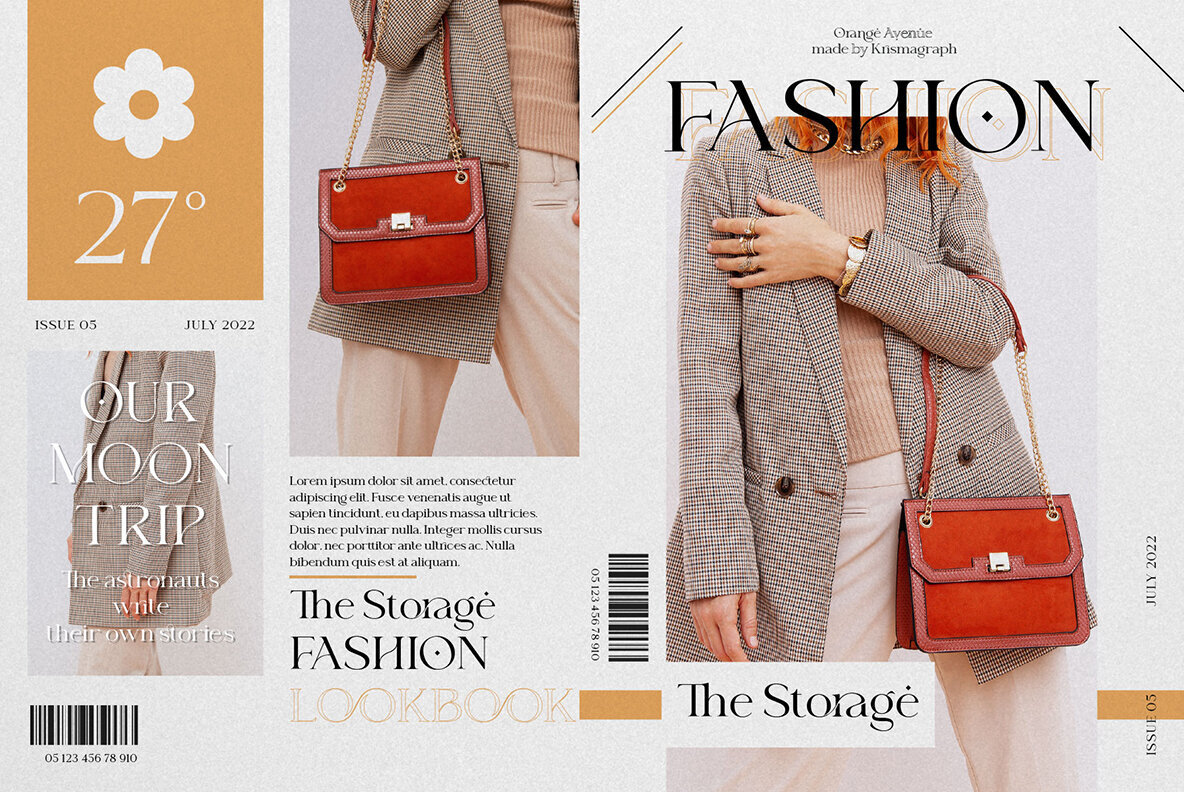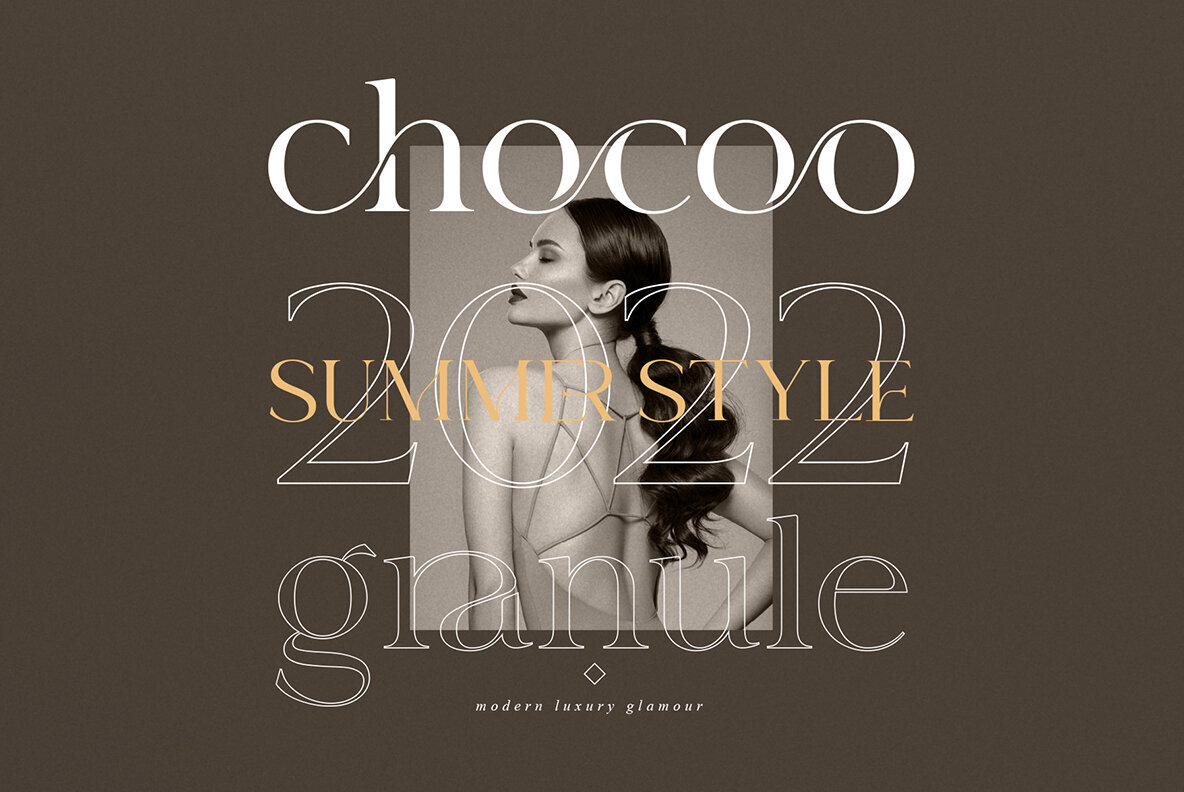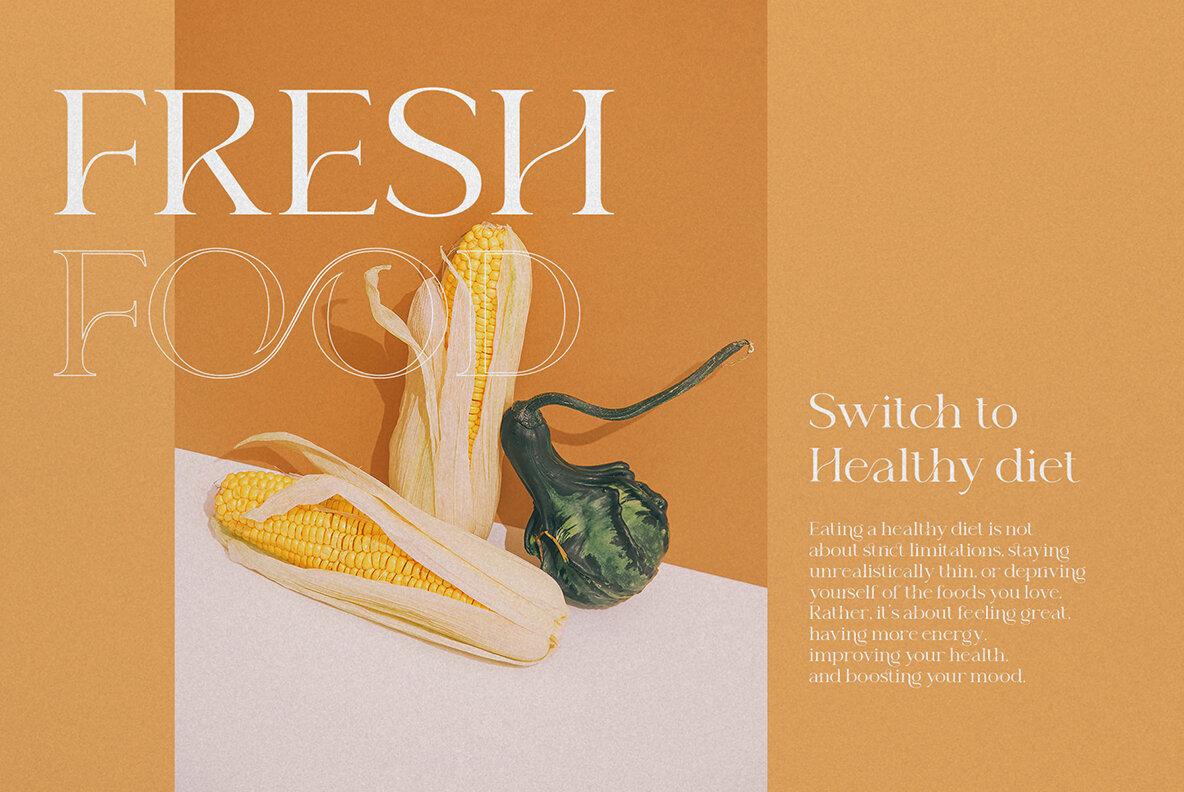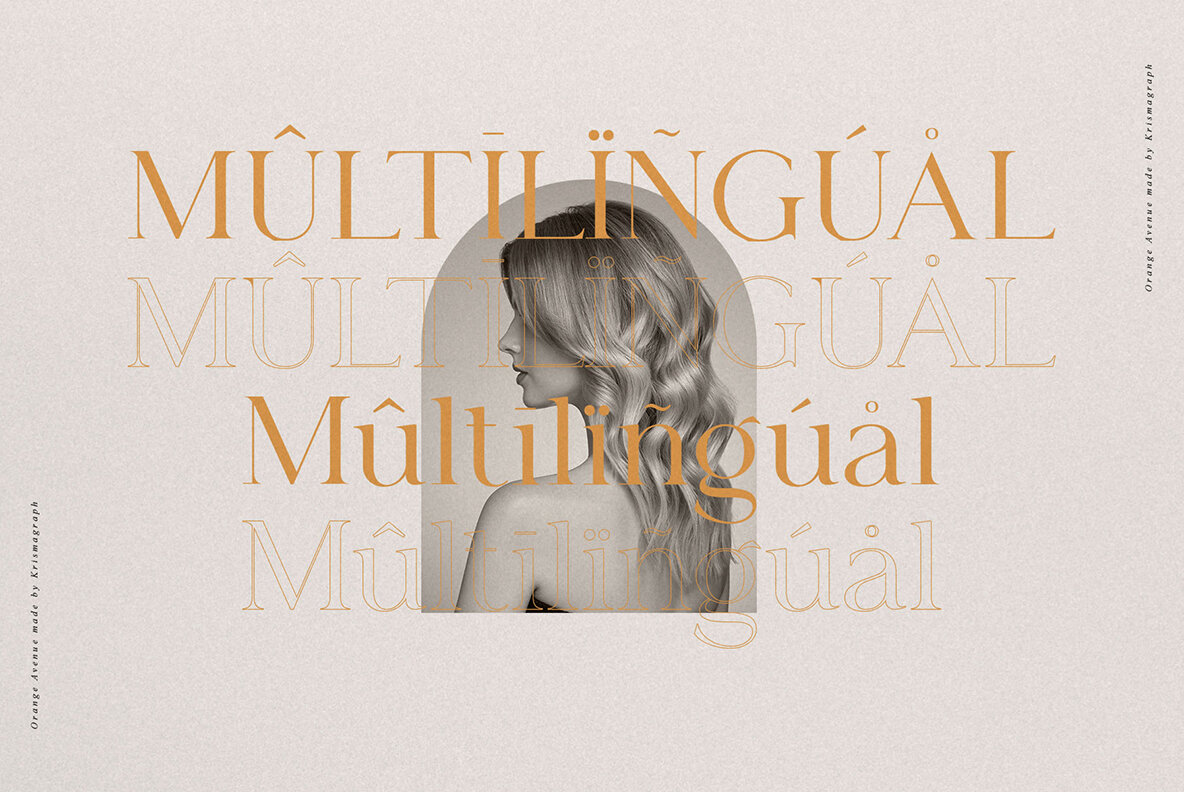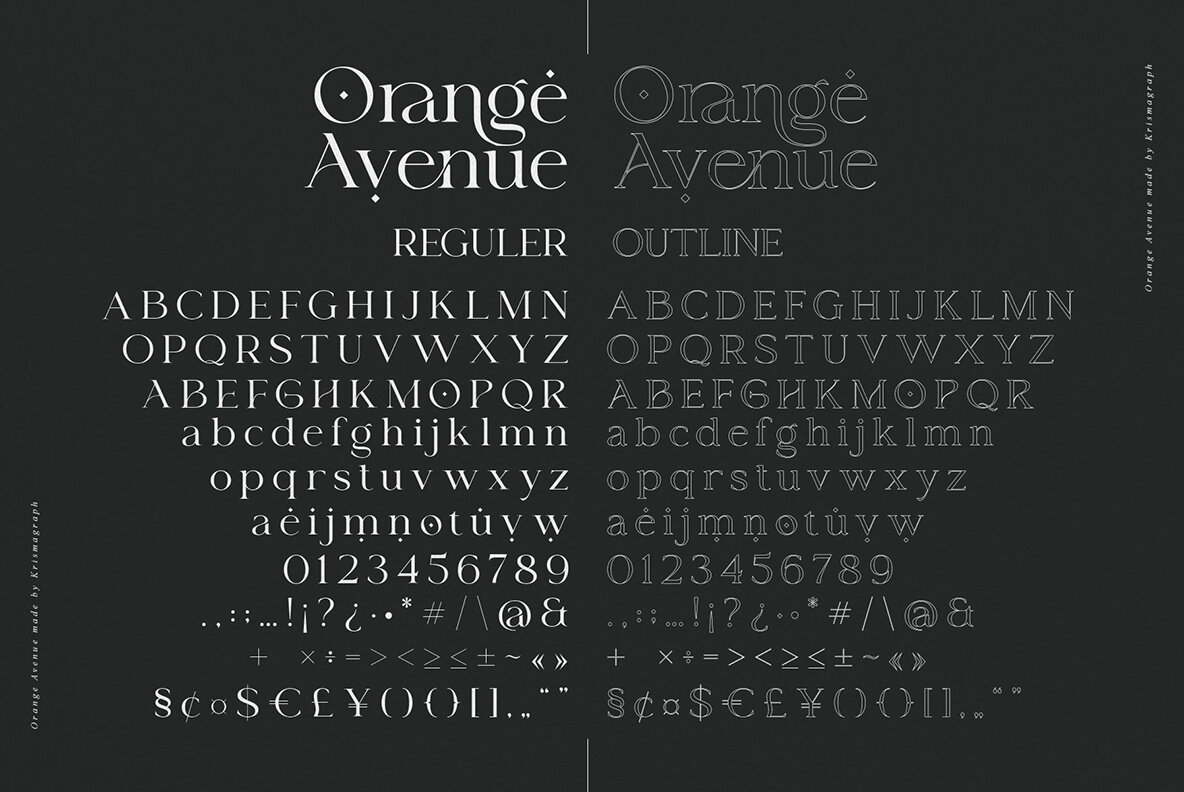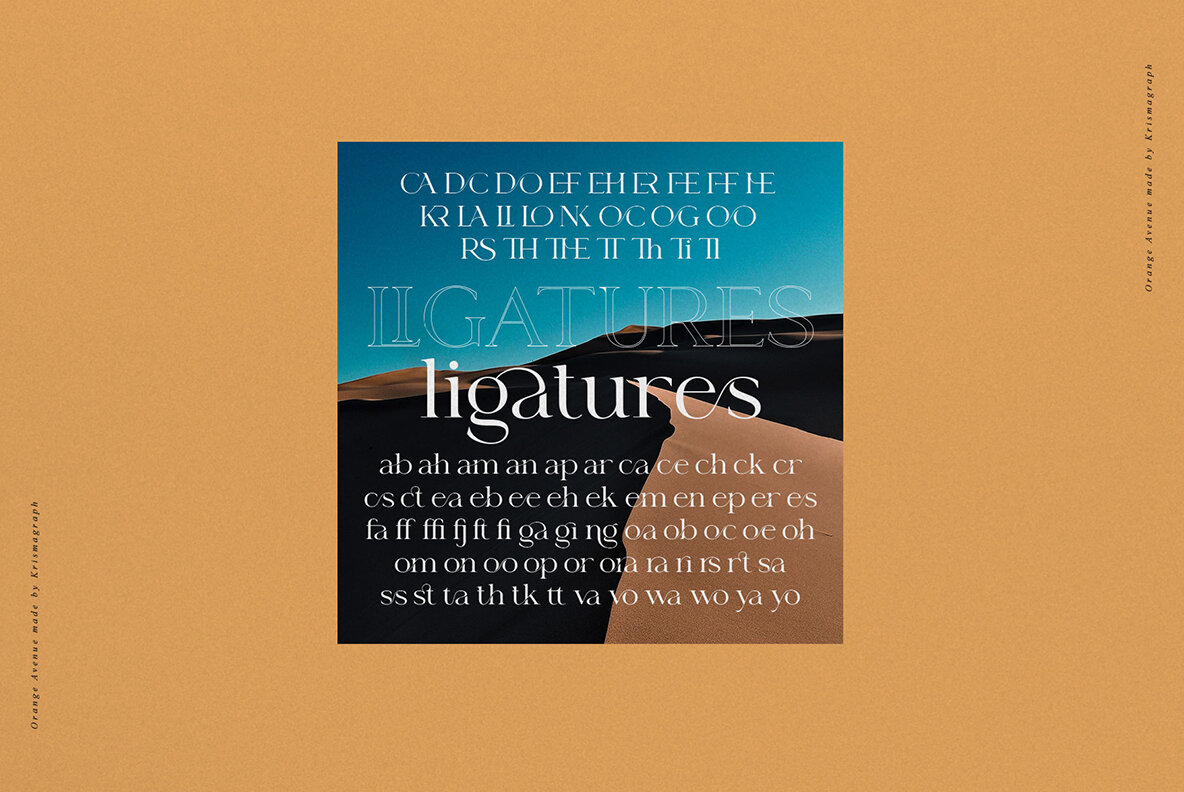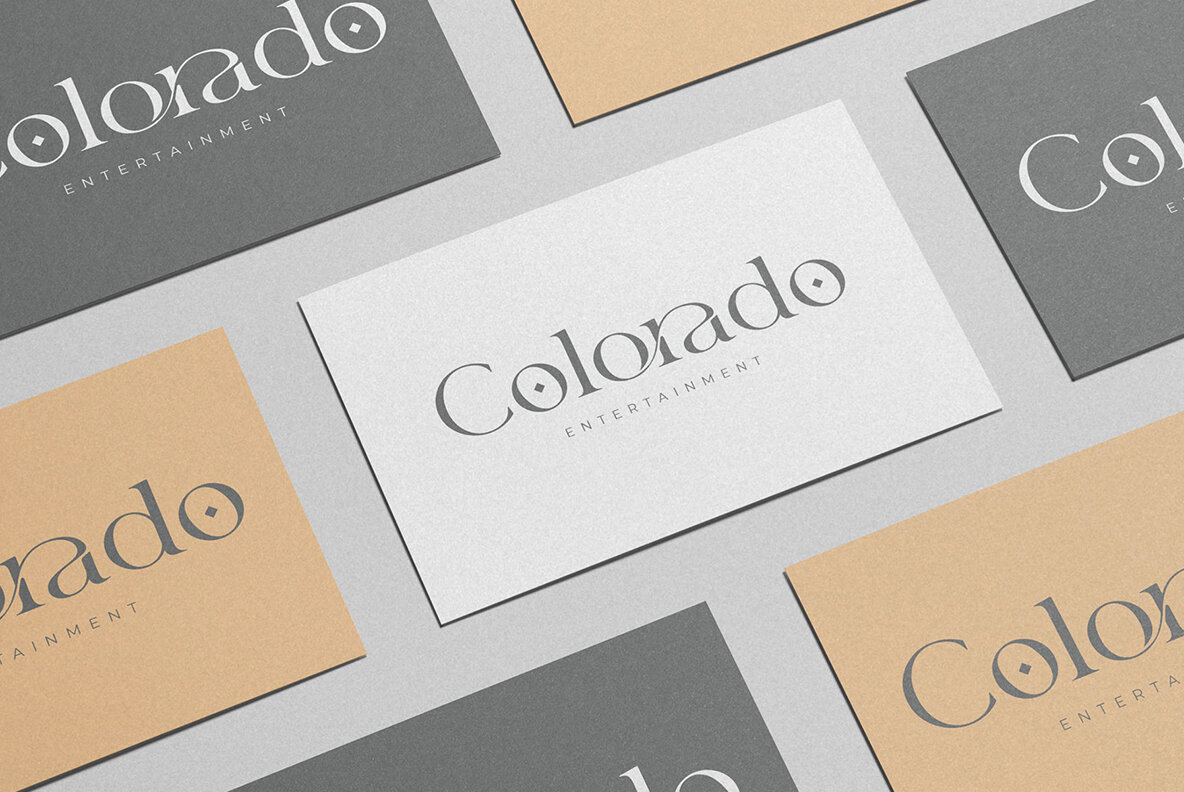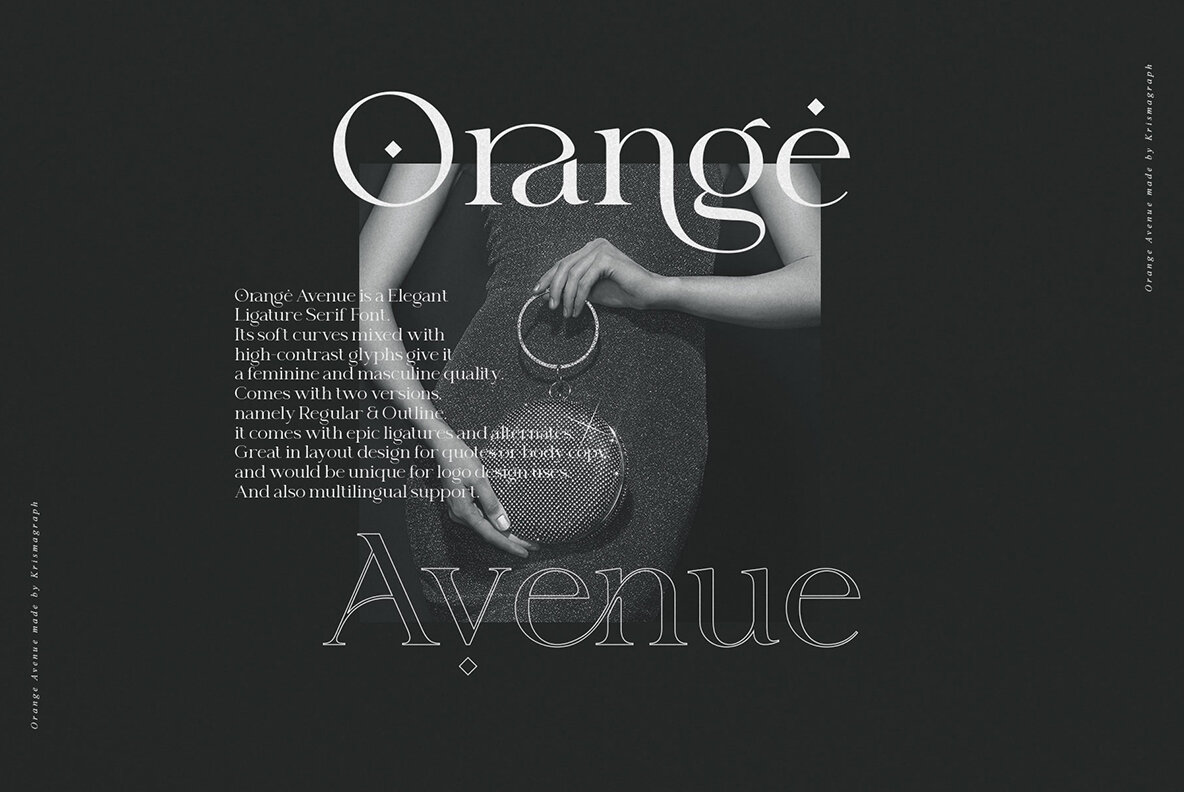
Orange Avenue Font
Orange Avenue is a font that has both feminine and masculine qualities. It's perfect for quotes or body copy, as it can be used in layout designs, headings, brand logos and more.